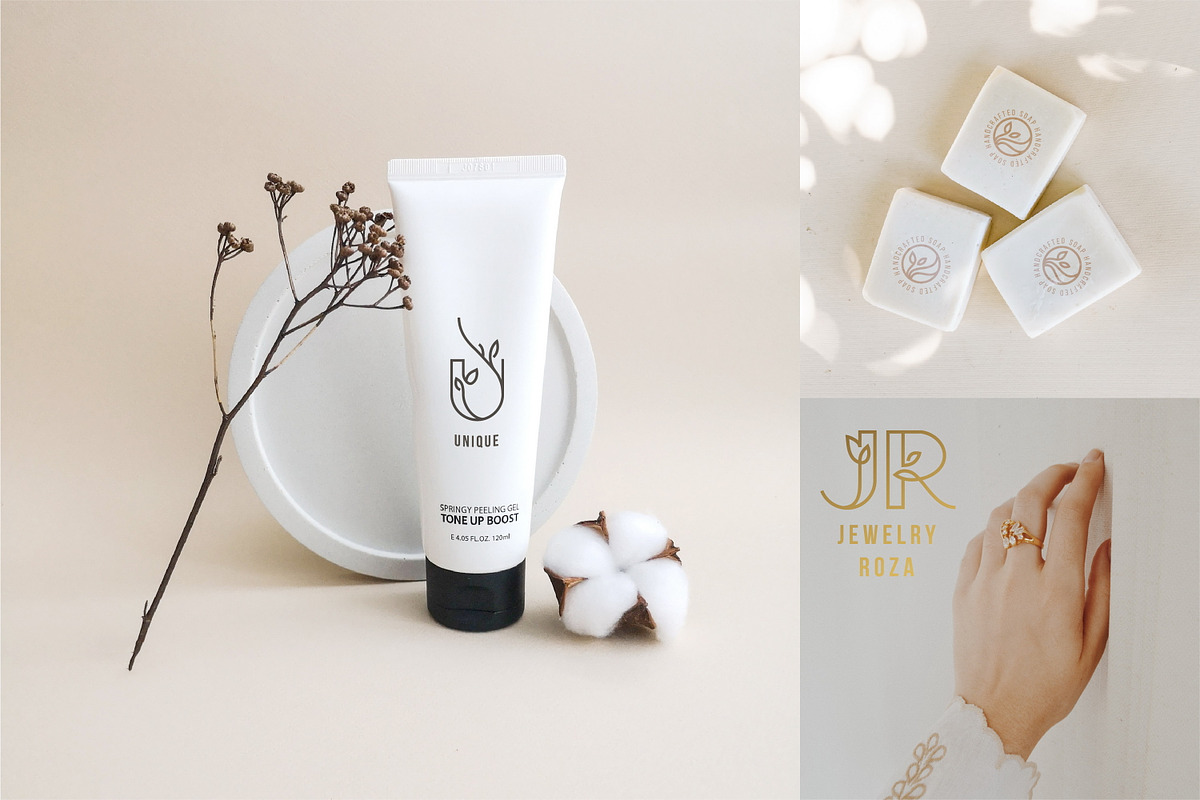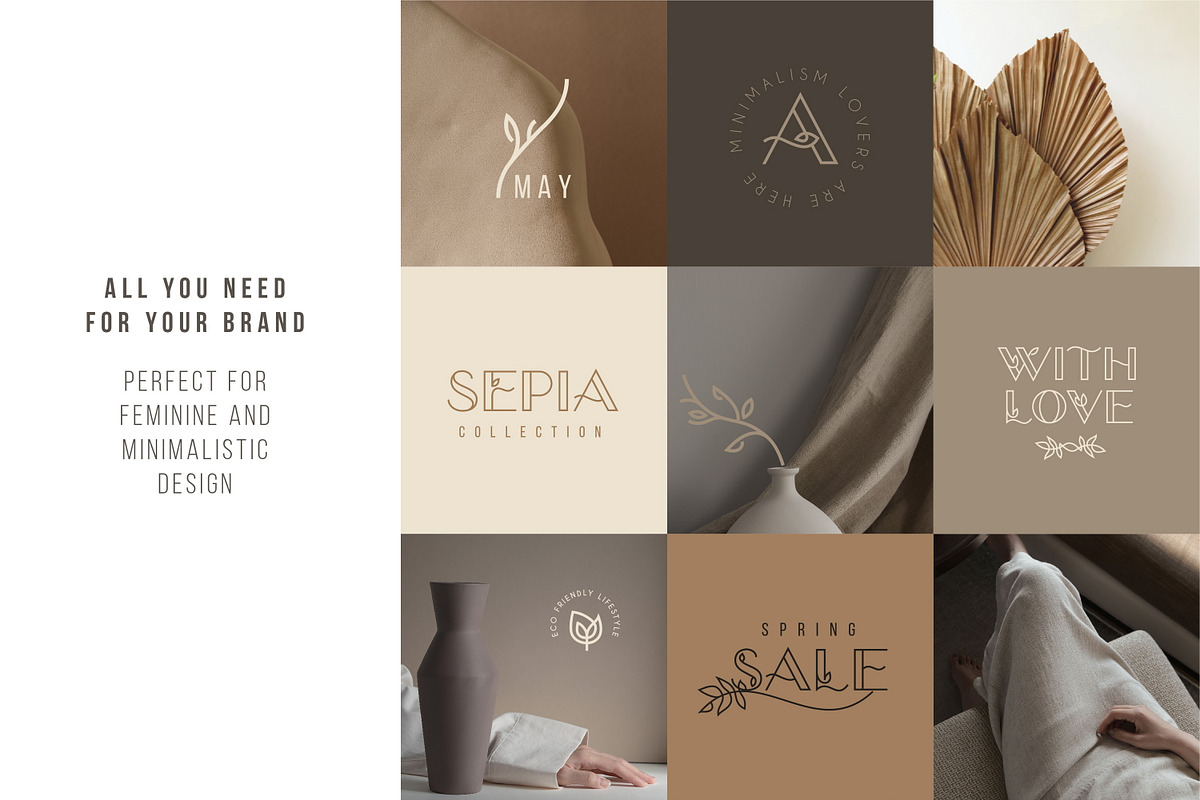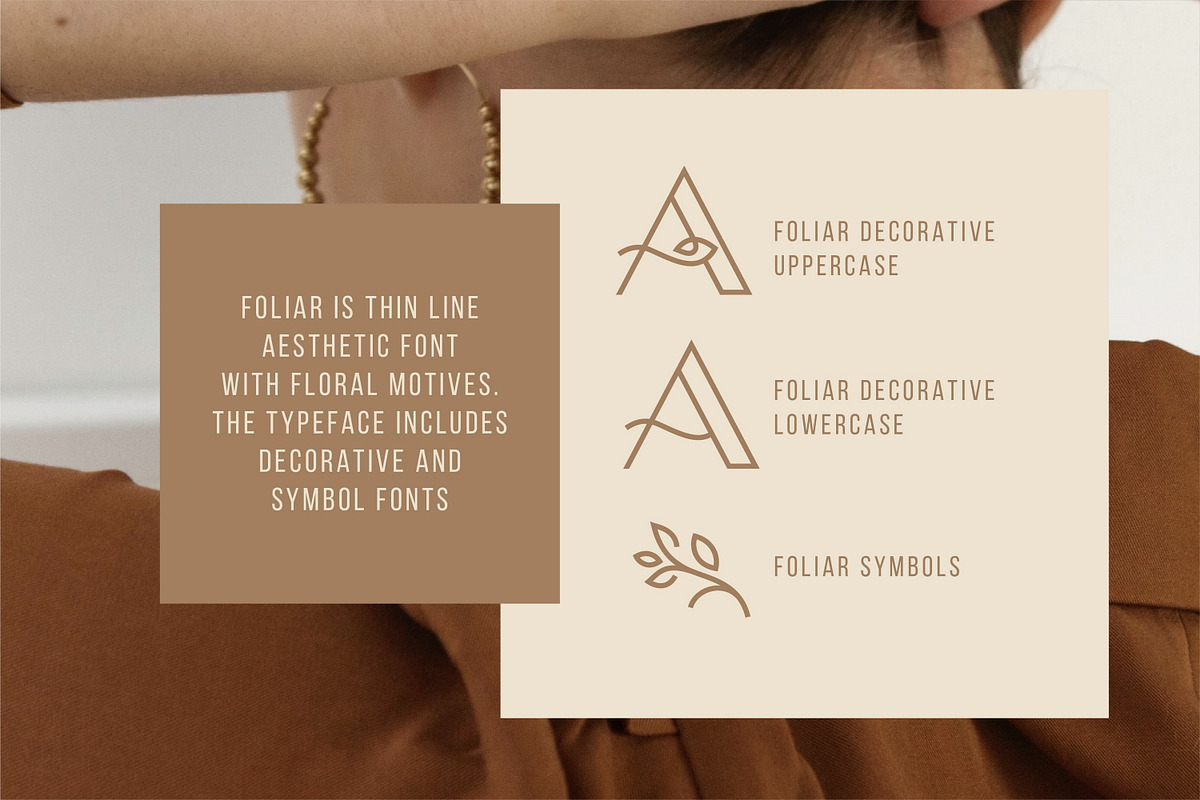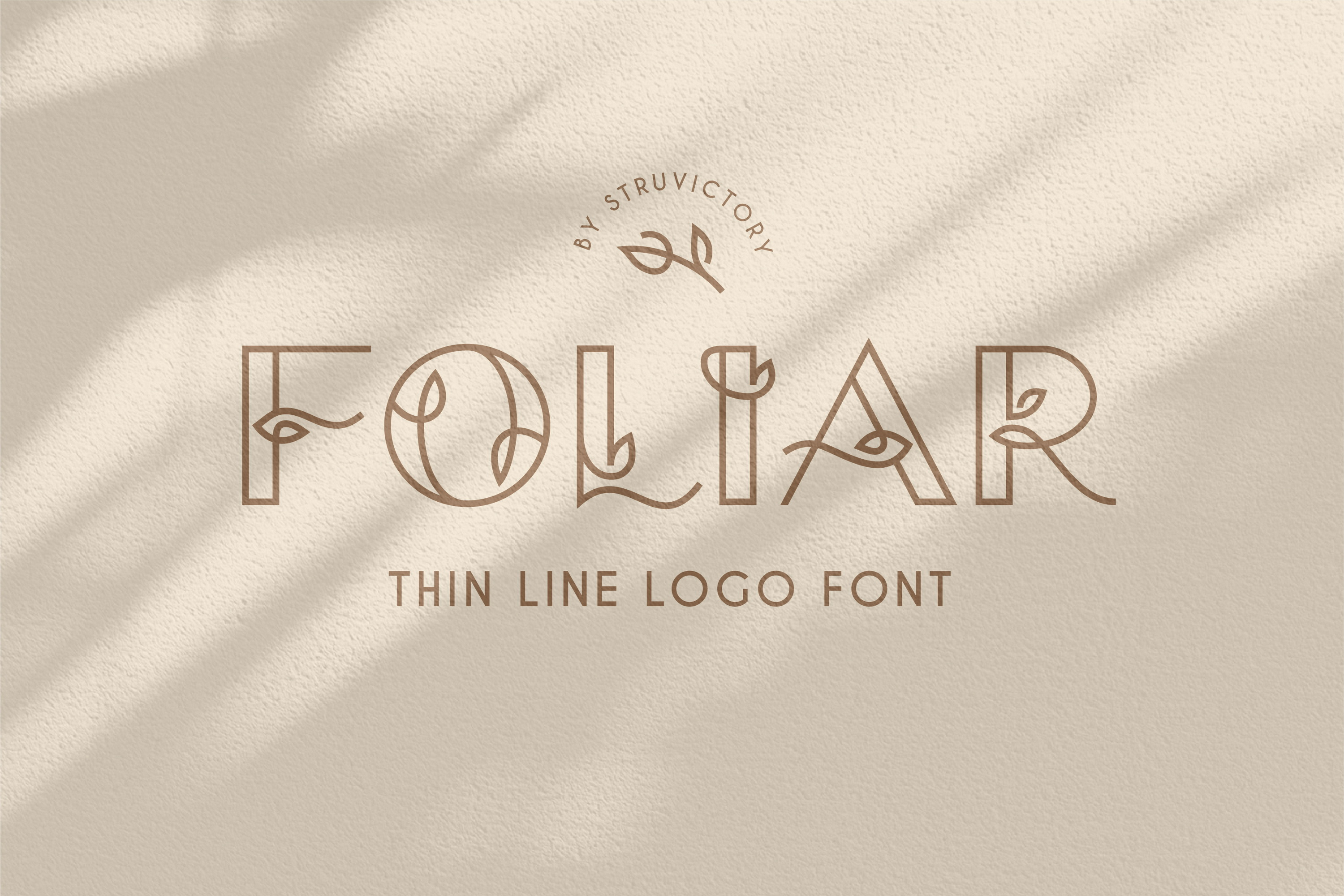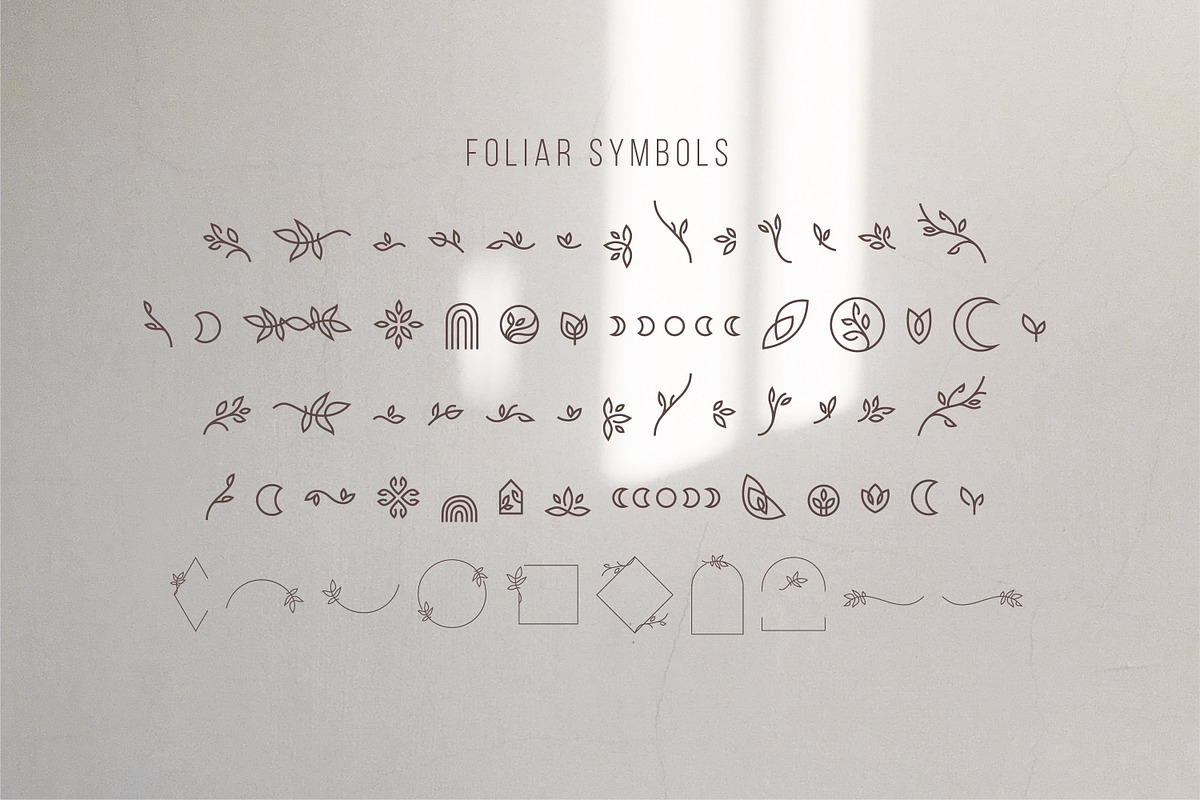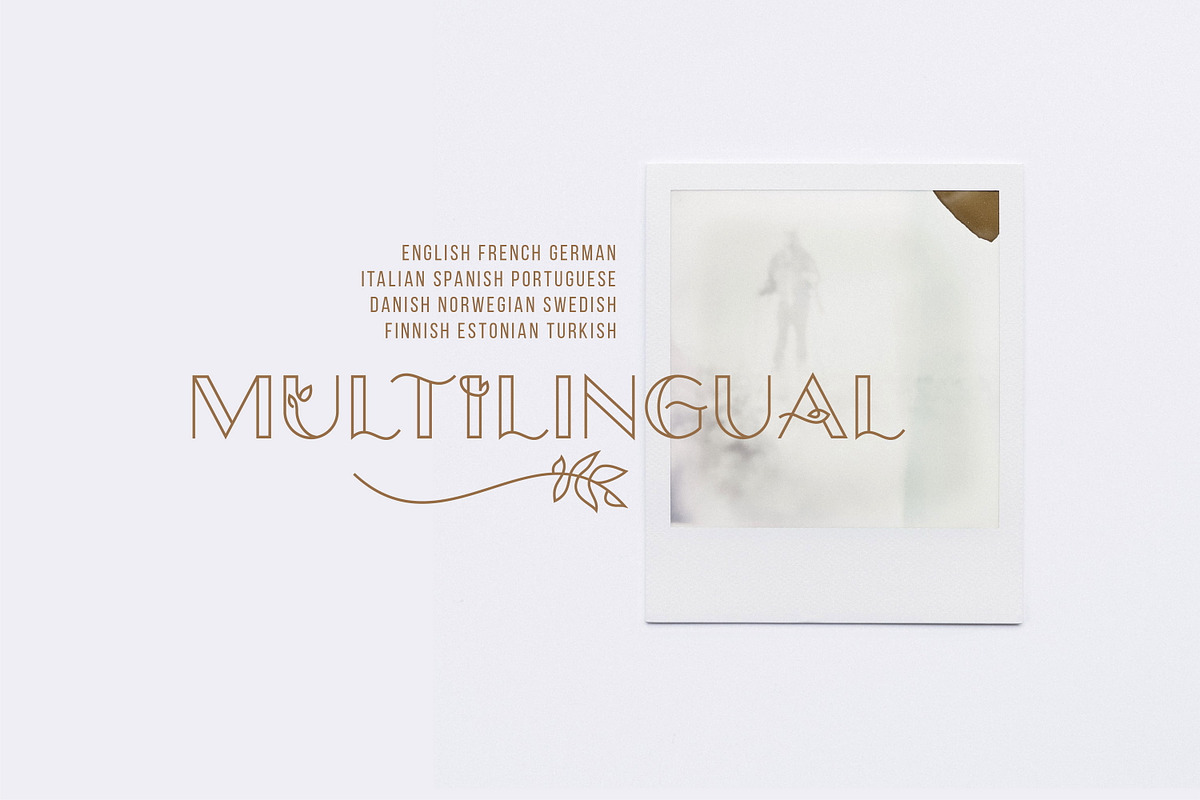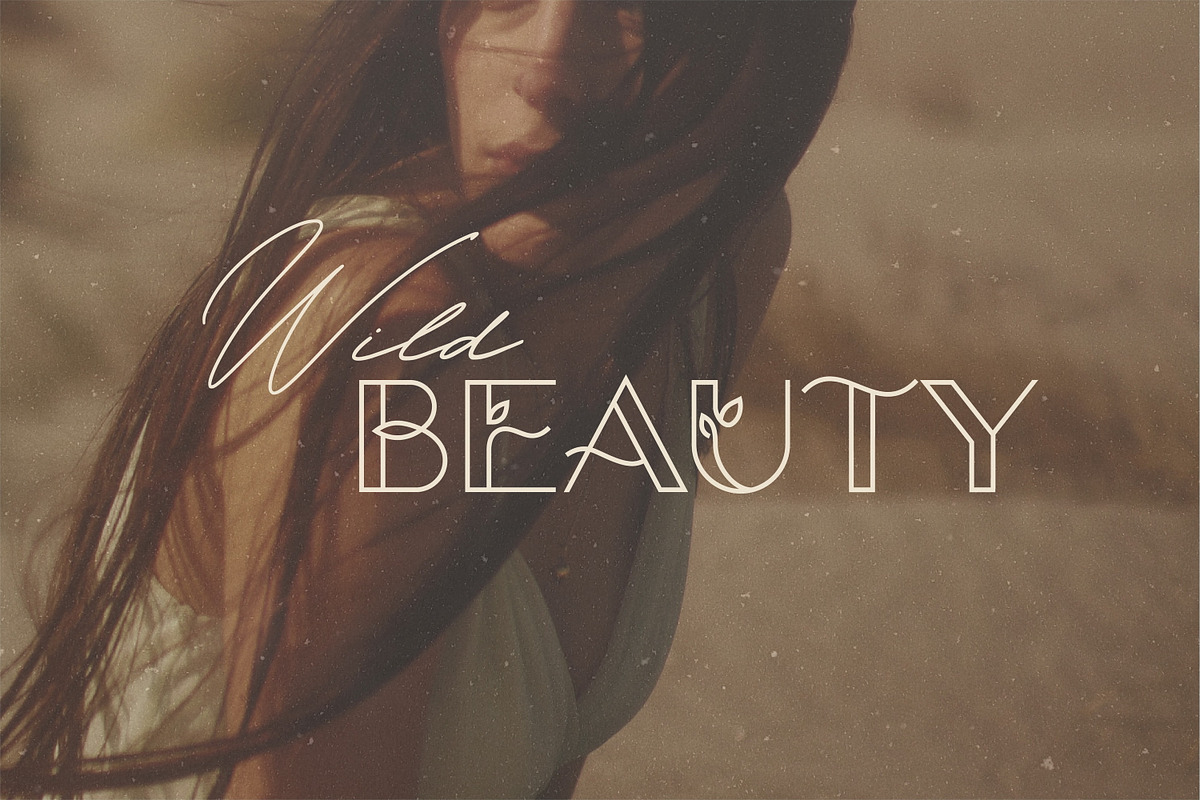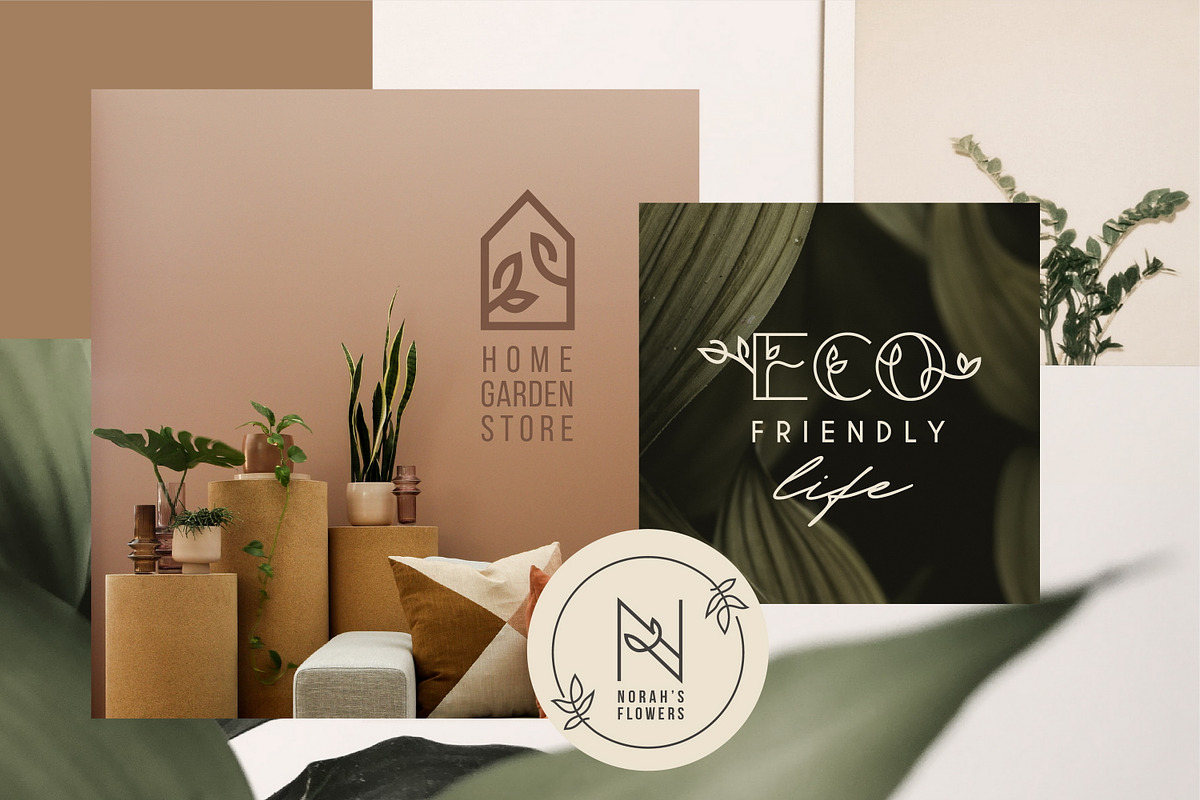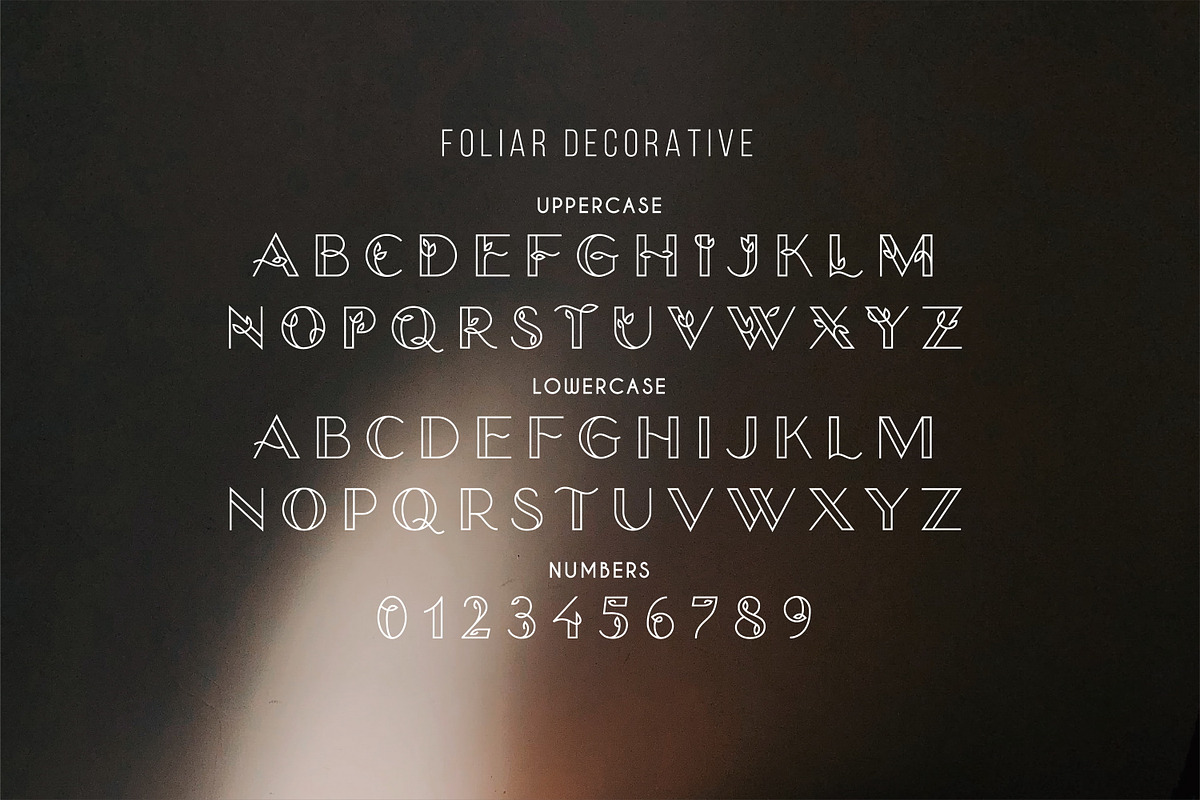
Foliar - Thin Line Logo Font
Foliar is thin line uppercase font with floral motives. The typeface includes Decorative and Symbol styles. To get an elegant and unique design, combine letters with symbols. The font is easy to use in various design programs or without any program.
Foliar is suitable for feminine business branding, eco-friendly and minimalistic art, social media design. The font works great for craft products branding and packaging (organic cosmetics and food, jewelry, floristics, handmade soap ect.) Also use individual letters and symbols to create logos and monograms. "Foliar" combines well with modern graphics: abstract shapes and line art.
The font has extensive language support, it includes English, French, German, Italian, Spanish, Portuguese, Danish, Norwegian, Swedish, Finnish, Estonian, Turkish. Need to know if your language is supported? Type any words in the text box below and see if all characters you need are there.